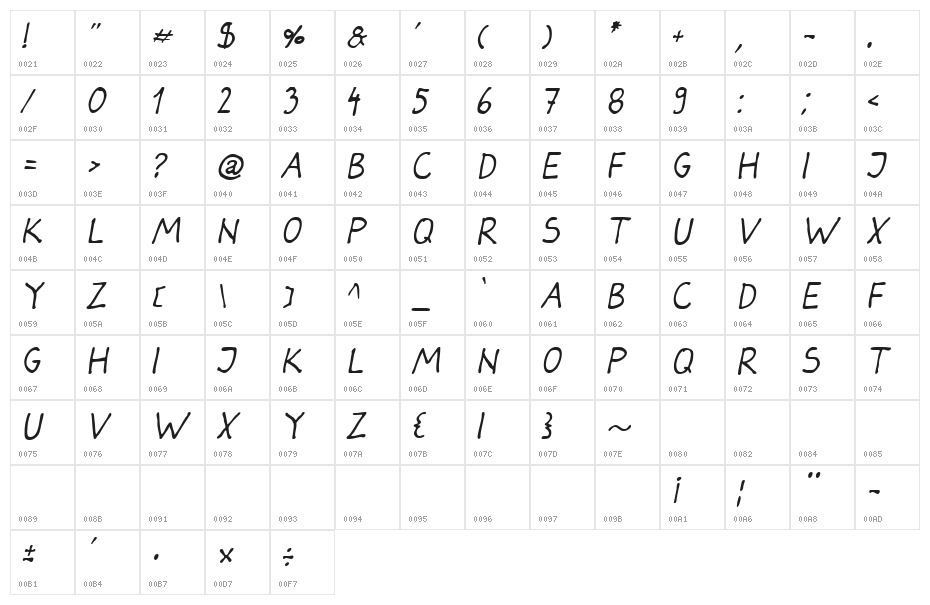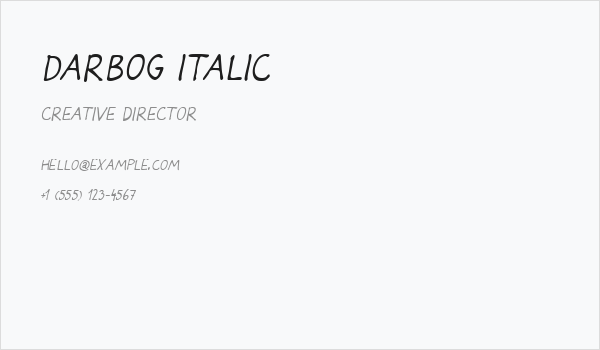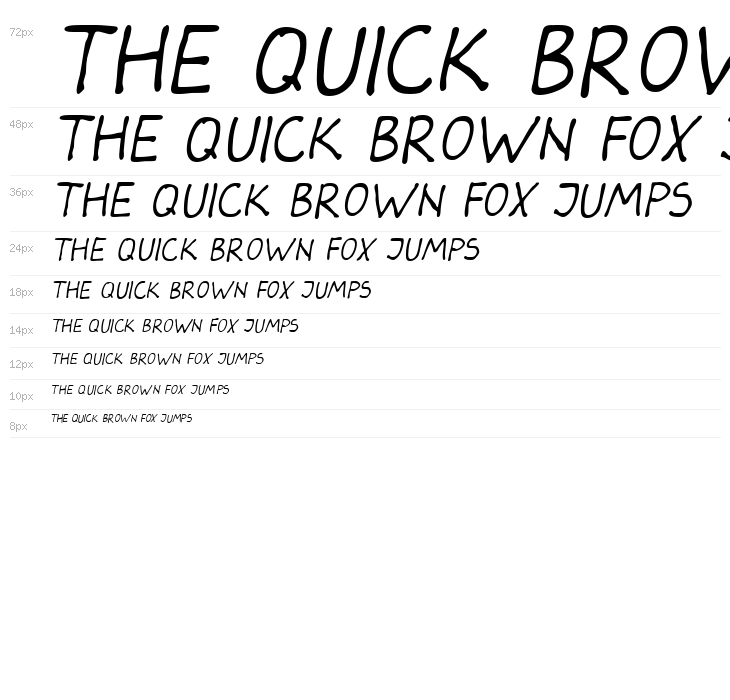
Darbog Italic Font
Darbog Italic Description
This font features a handwritten style with a casual and informal appearance. The characters are slightly slanted, giving it an italicized look that adds a dynamic and flowing feel. The strokes are smooth and consistent, with a medium thickness that maintains readability while conveying a personal touch. The uppercase and lowercase letters are well-balanced, and the numbers are clear and distinct. Special characters are included, enhancing its versatility for various uses. Overall, this font exudes a friendly and approachable vibe, making it suitable for creative projects.
| Use Case | Logos, Headlines, Social Media |
| Proposed Projects | Ideal for greeting cards, personal branding, casual invitations, and social media graphics. |